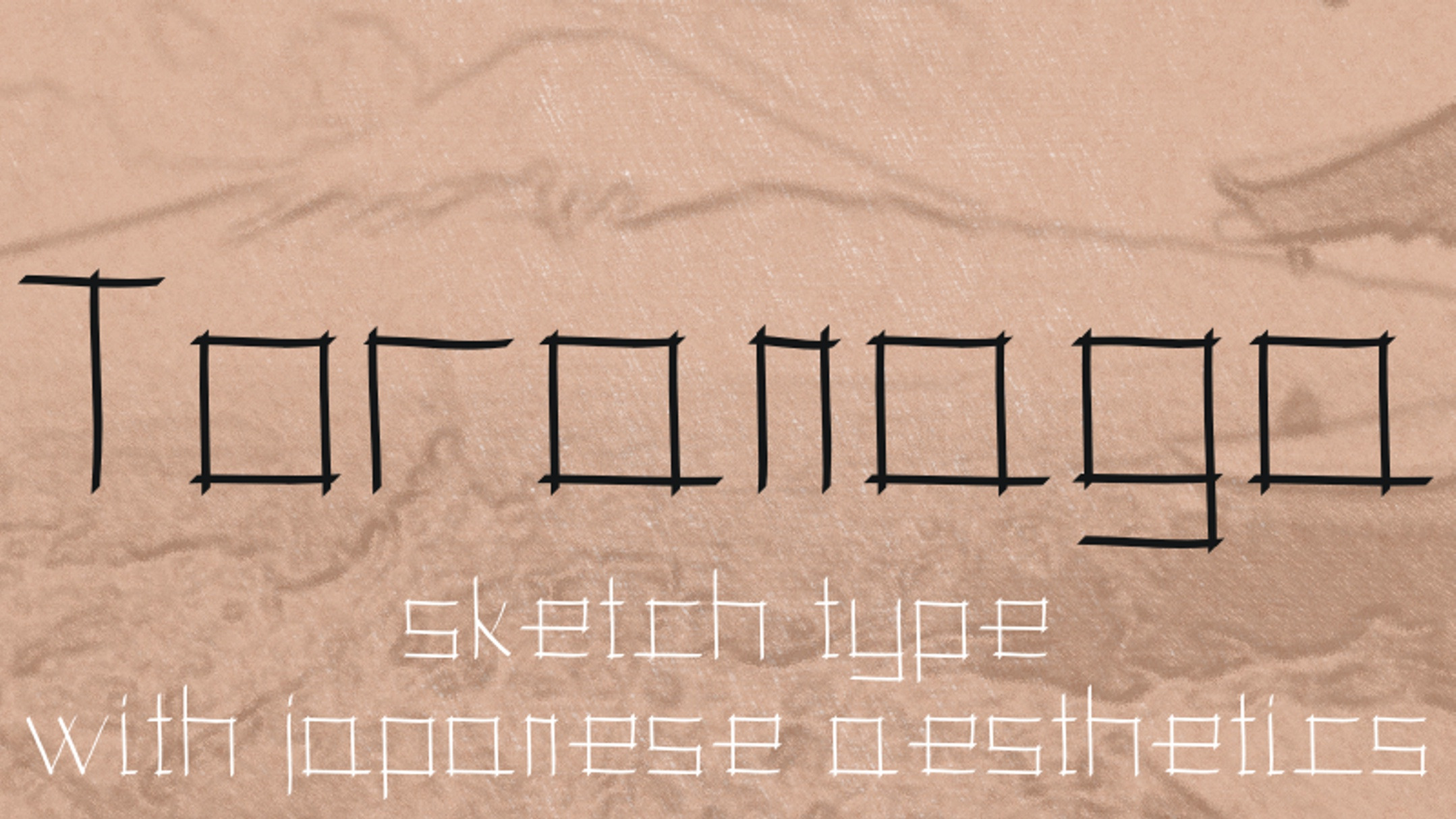
Toranaga, a Japanese inspired font
Toranaga font is a sketch typeface made out of sticks inspired by old Japanese writings. Toranaga font can be used to give an Asian feel to your designs.